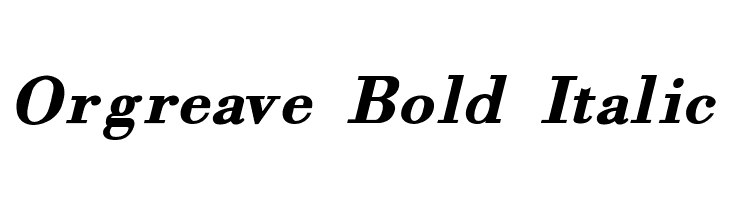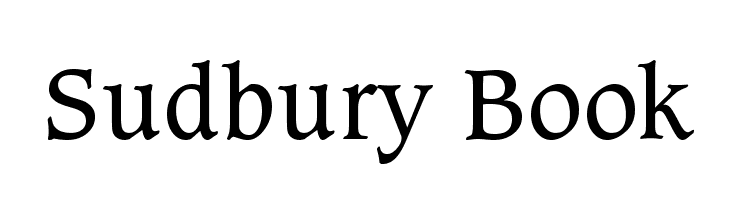
A classic serif font with elegant strokes and pronounced serifs.
A classic serif font with elegant, thin strokes and high contrast.
A bold, classic serif font with elegant flared serifs and strong presence.
An elegant italic serif font with classic and sophisticated appeal.
A classic serif font with elegant, sharp serifs and refined structure.
An elegant italic serif font with medium contrast and refined style.
An elegant open-face serif font with a classic yet modern appeal.
An elegant italic serif font with smooth curves and a refined, classic style.
A bold, classic serif font with strong strokes and pronounced serifs.
A classic serif font with elegant strokes and refined proportions.